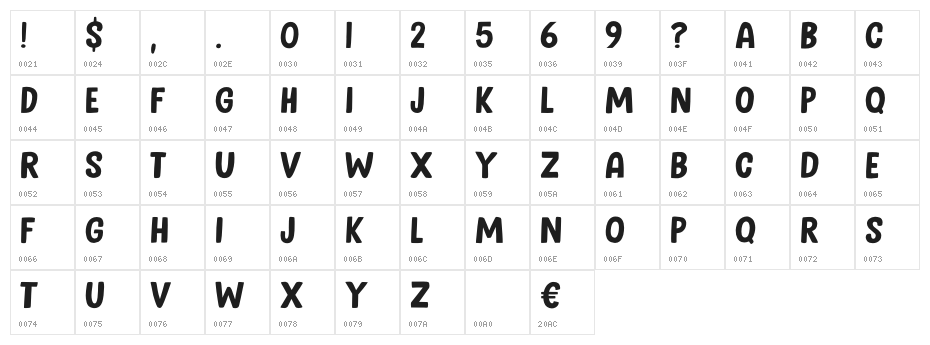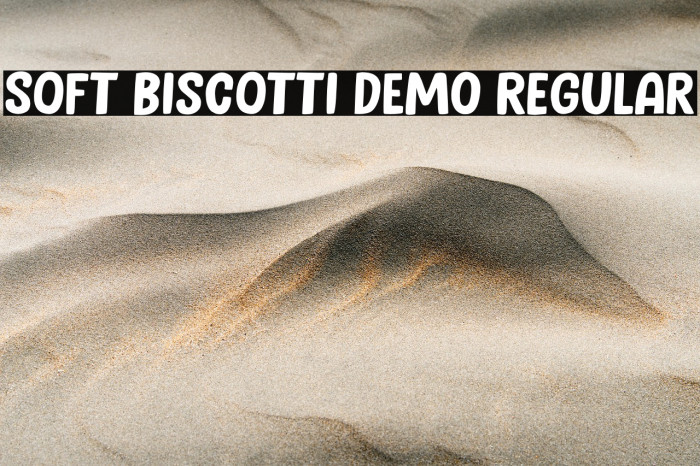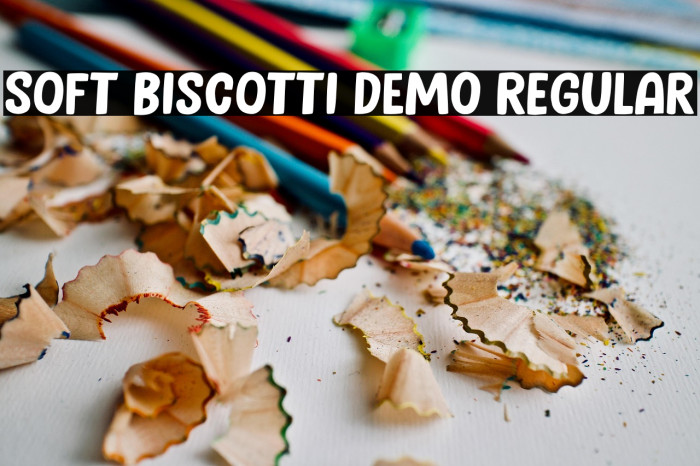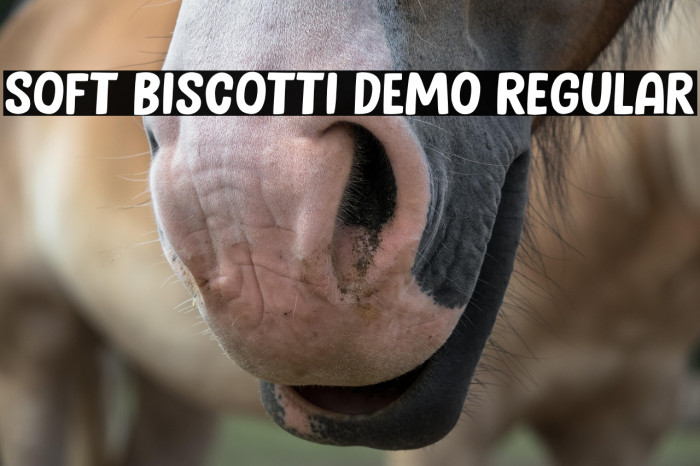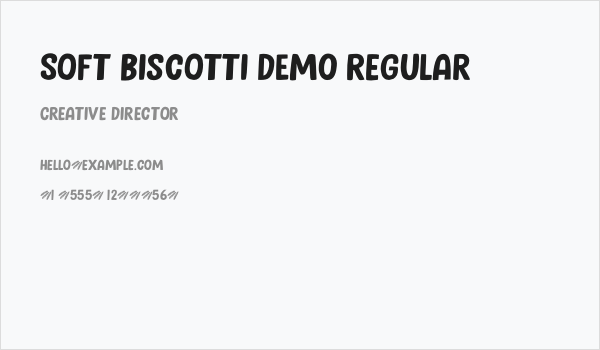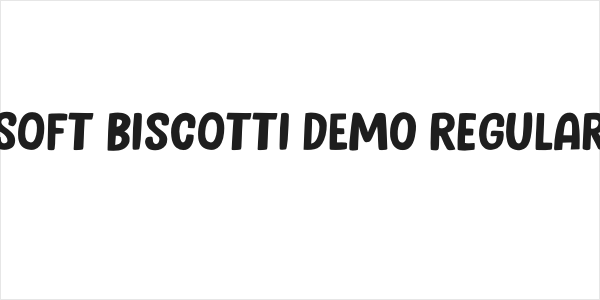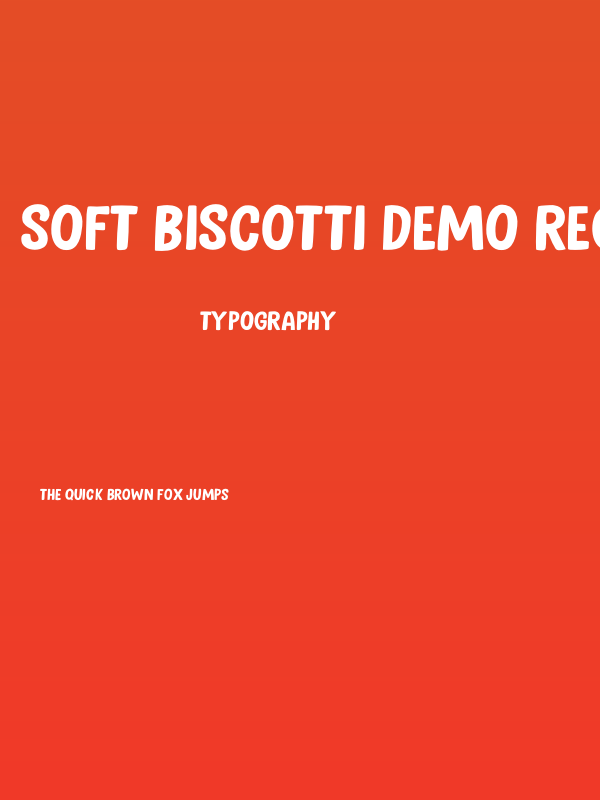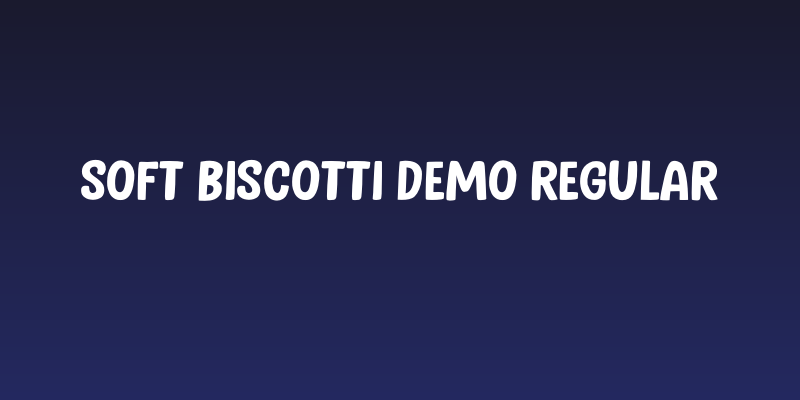
Soft Biscotti DEMO Regular Font
Soft Biscotti DEMO Regular Description
This font features a playful and bold design, characterized by its rounded and slightly irregular letterforms. The strokes are thick and consistent, giving it a strong presence. The uppercase and lowercase letters maintain a uniform style, with a slight tilt that adds a dynamic feel. The numbers and special characters follow the same design principles, ensuring cohesion across all elements. This font's unique style makes it suitable for projects that require a fun and engaging appearance.
| Proposed Projects | Ideal for children's books, playful branding, posters, and social media graphics. |